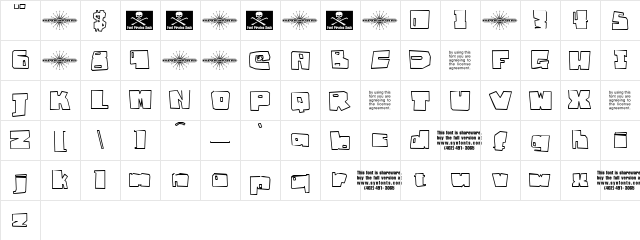
Badger Fatboy UNPAID DEMO
Design Context for Badger Fatboy Typeface
Badger Fatboy is a composed and adaptable typeface that performs quietly and consistently across a wide range of design contexts.